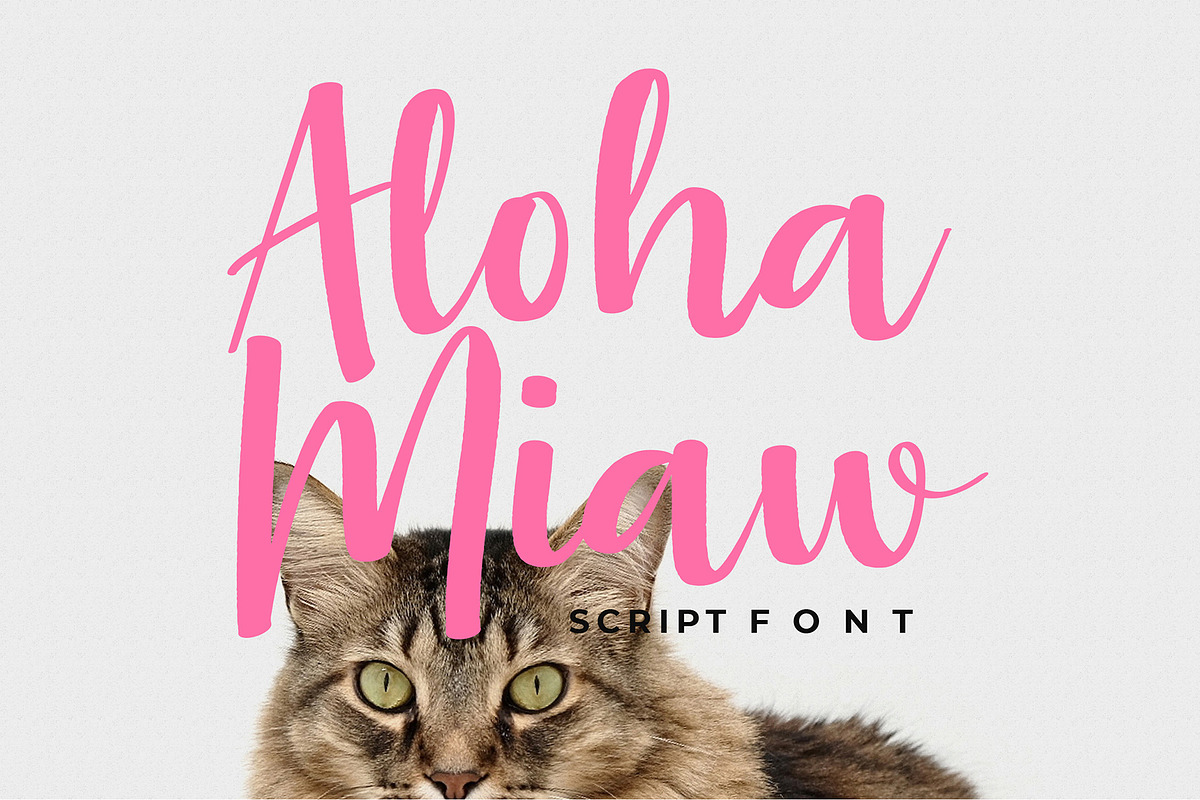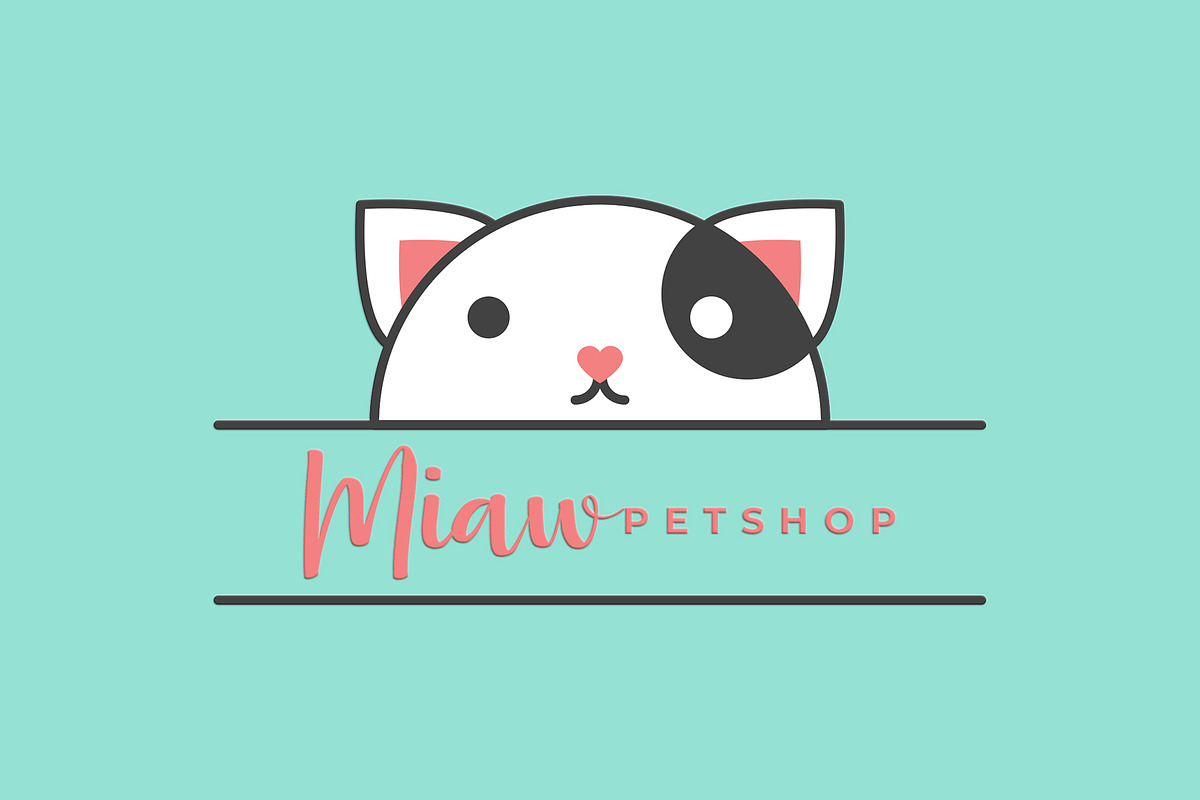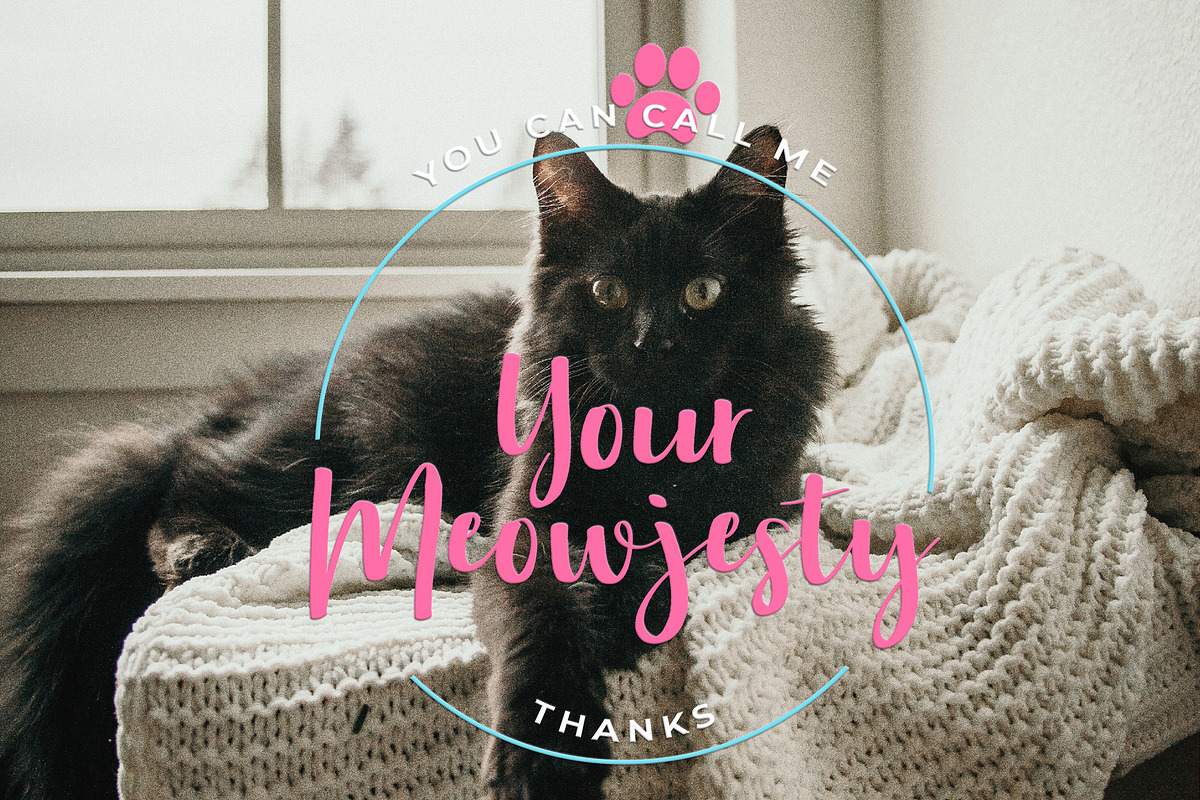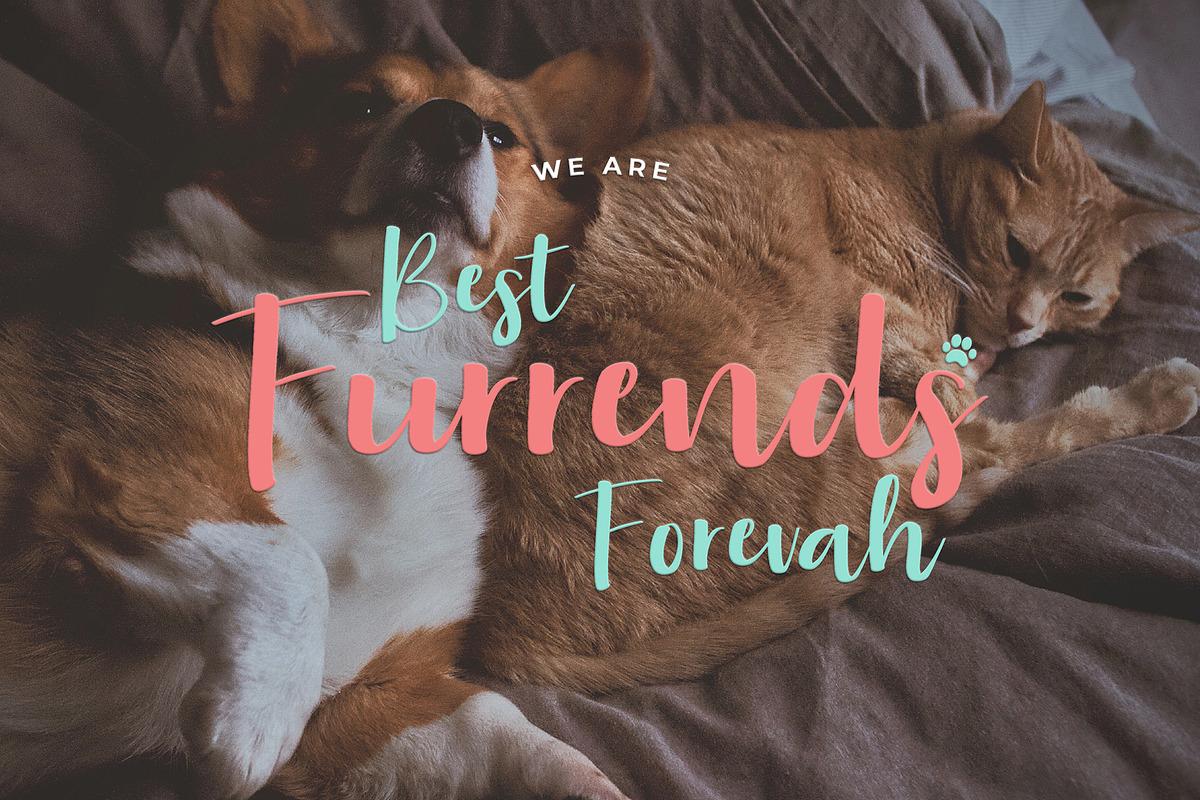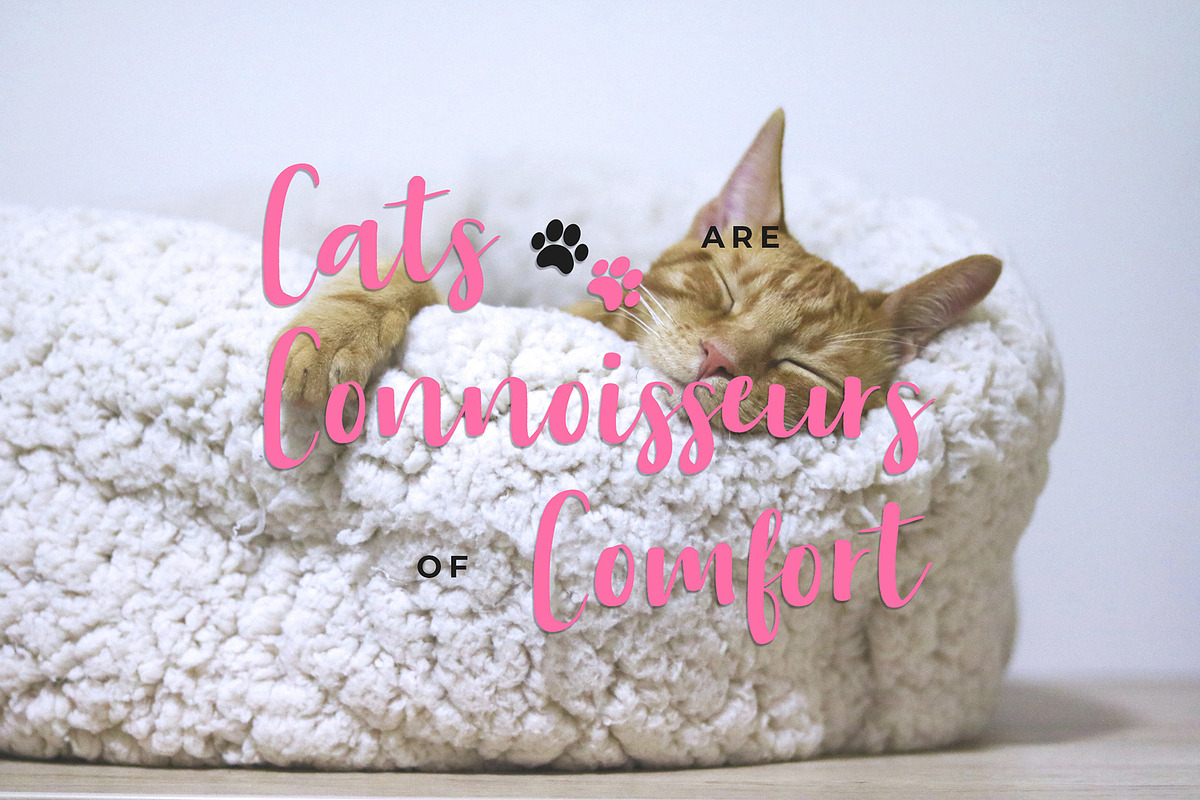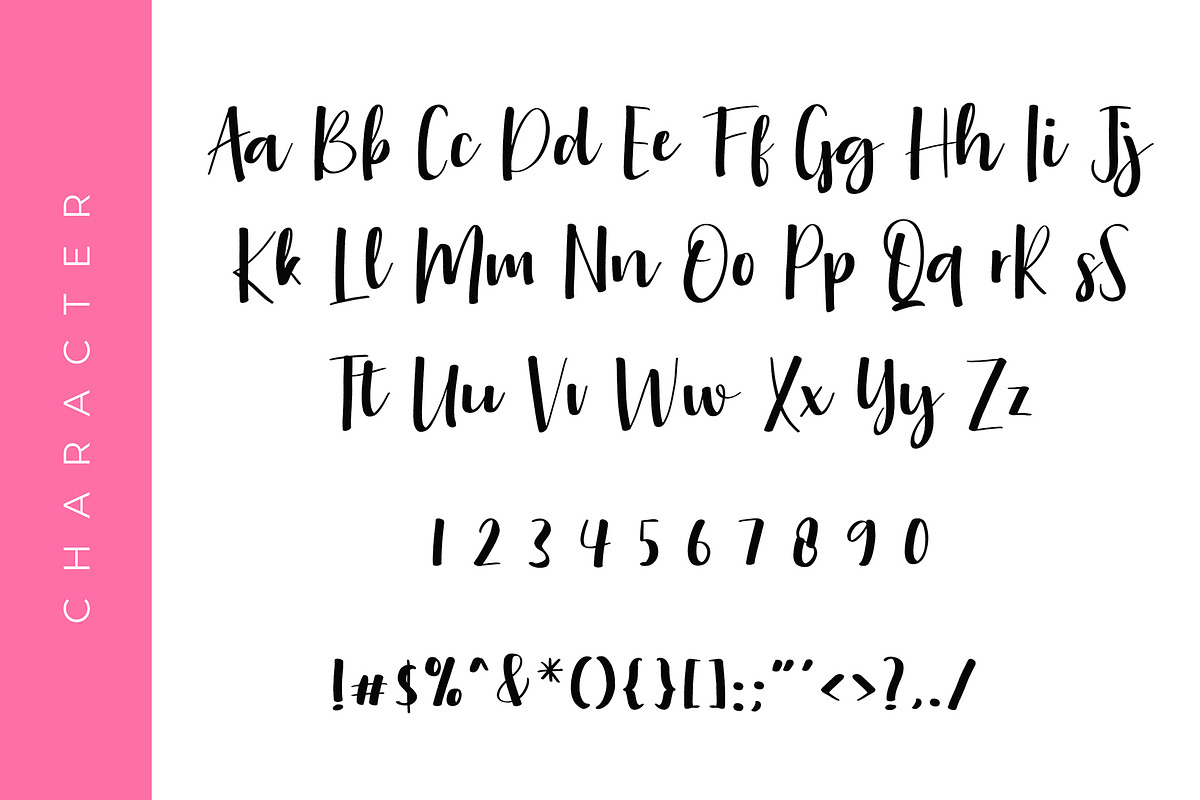
Aloha Miaw Script Font
Aloha Miaw Script Font can be used for various purposes such as logos, wedding invitations, t-shirts, letterheads, signage’s, labels, and much more!
Aloha Miaw Script Font by Formatika Studio fits naturally into Branding, posters, packaging, typography.